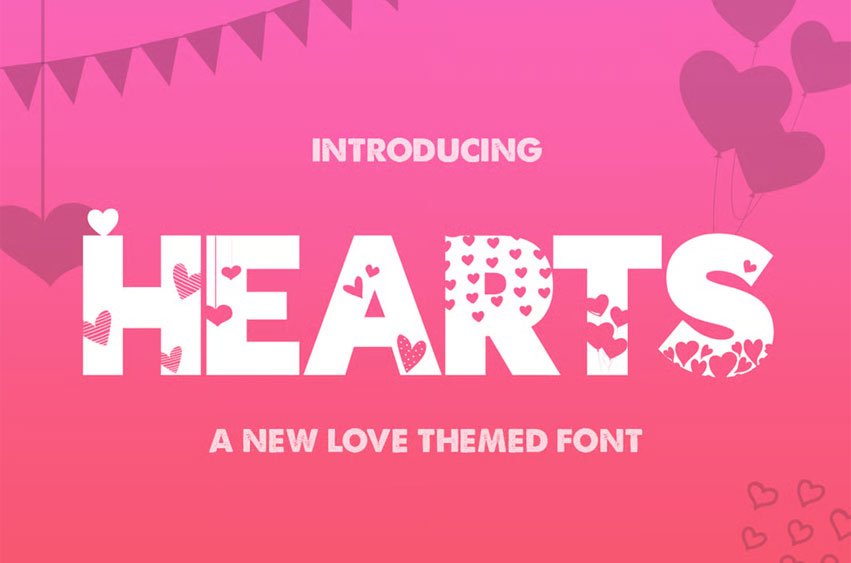
Hearts Silhouette Font fits in headlines, logos, posters, flyers, invitations, name cards, branding materials, print media, editorial layouts, and many more.